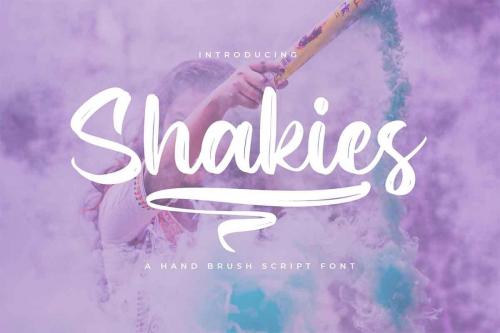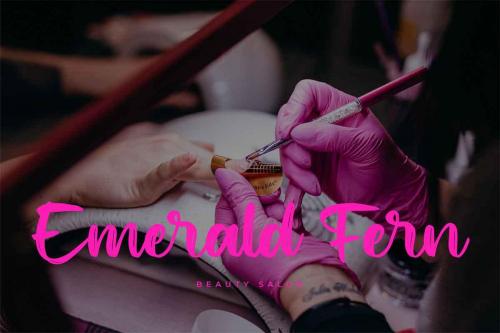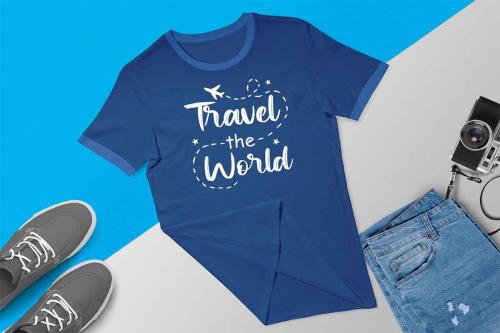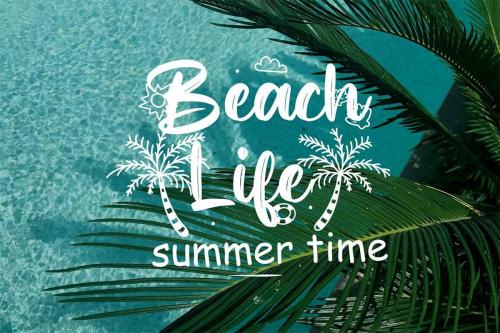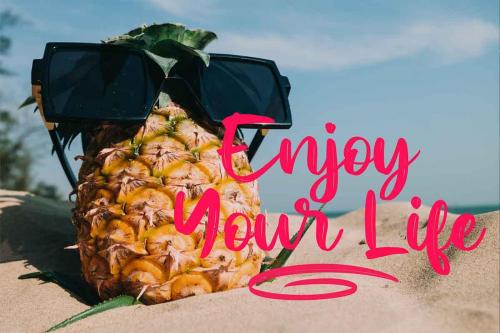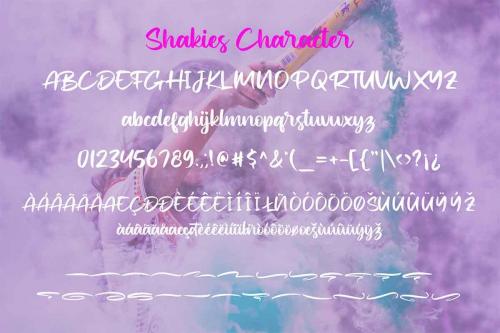
Shakies Font is carefully brush typeface with stylist style, clean, and style a script handlettering style. This font perfect for branding projects, logo, tshirt designs, social media posts, advertisements, product packaging, product designs, label, watermark, invitation, stationery and any projects.
- Designer: Vztype